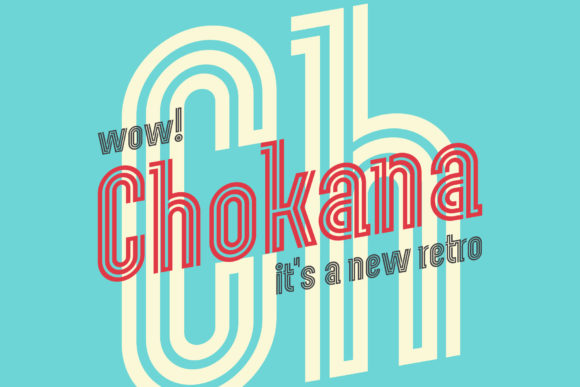
Introducing Chokana Font, the ultimate choice for those seeking the best font for modern logos! Created by the talented NREY, this font is designed to captivate and leave a lasting impression on your audience. With its nostalgic vibes inspired by the 70's aesthetic, Chokana Font brings a touch of retro charm to any creative project.
Imagine your designs adorned with bright captions and unforgettable logos that instantly transport your audience back in time. Chokana Font offers a unique multi-line display style that is both eye-catching and visually appealing. Its carefully crafted letterforms exude a sense of nostalgia, making it the perfect solution for anyone looking to add a lovely retro touch to their designs.
Whether you're a seasoned designer or just starting out, Chokana Font is the perfect companion for your creative ventures. Its versatility allows it to seamlessly blend with various design elements, ensuring that your projects stand out from the crowd. From branding to social media graphics, this font is guaranteed to capture everyone's attention and make your designs truly memorable.
But Chokana Font is more than just a font - it's an emotion, a feeling that resonates with your audience. Its unique charm evokes a sense of warmth and familiarity, instantly creating a connection with your viewers. With each stroke and curve, Chokana Font tells a story and invites your audience to be a part of it.
With its extensive range of characters and glyphs, Chokana Font offers endless possibilities for customization and creativity. Let your imagination run wild as you explore the various combinations and effects this font has to offer. From bold and impactful to soft and elegant, Chokana Font empowers you to express your unique style and personality.